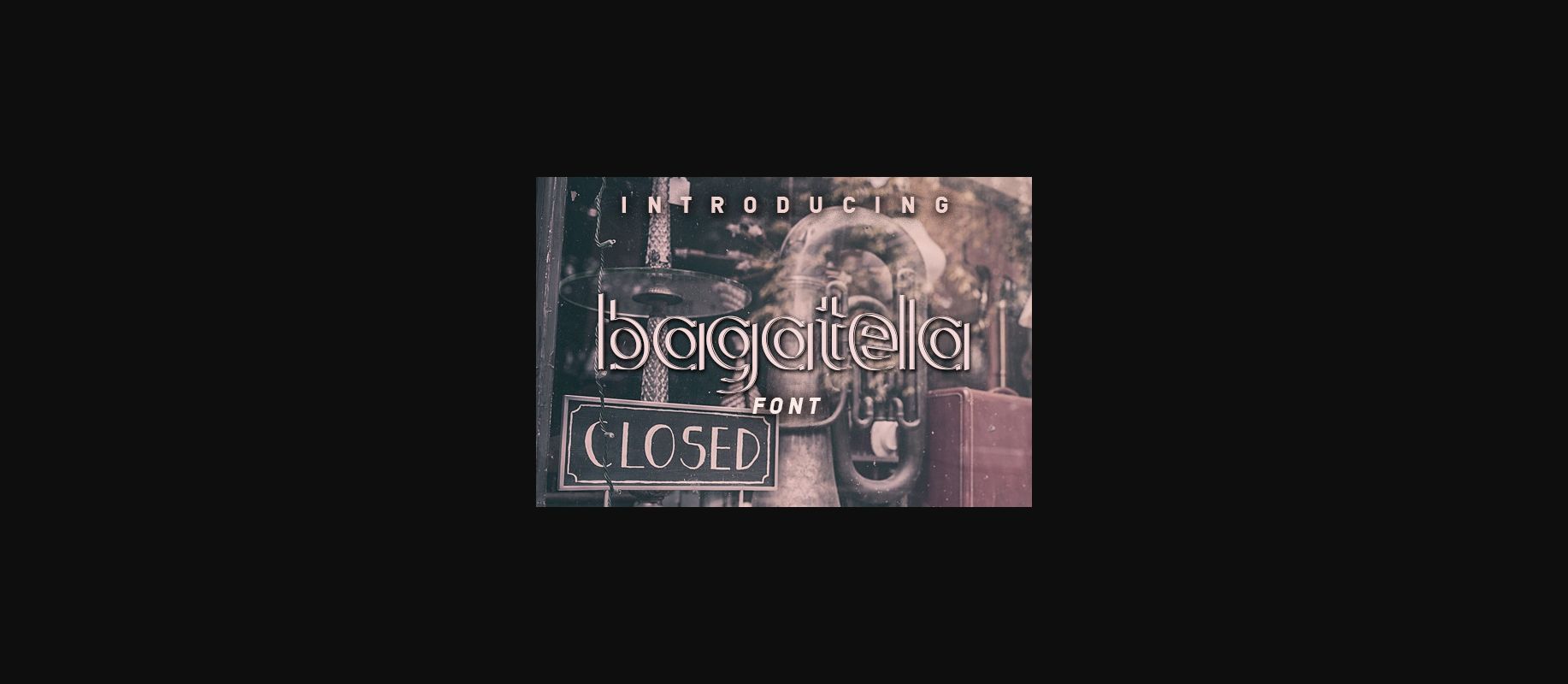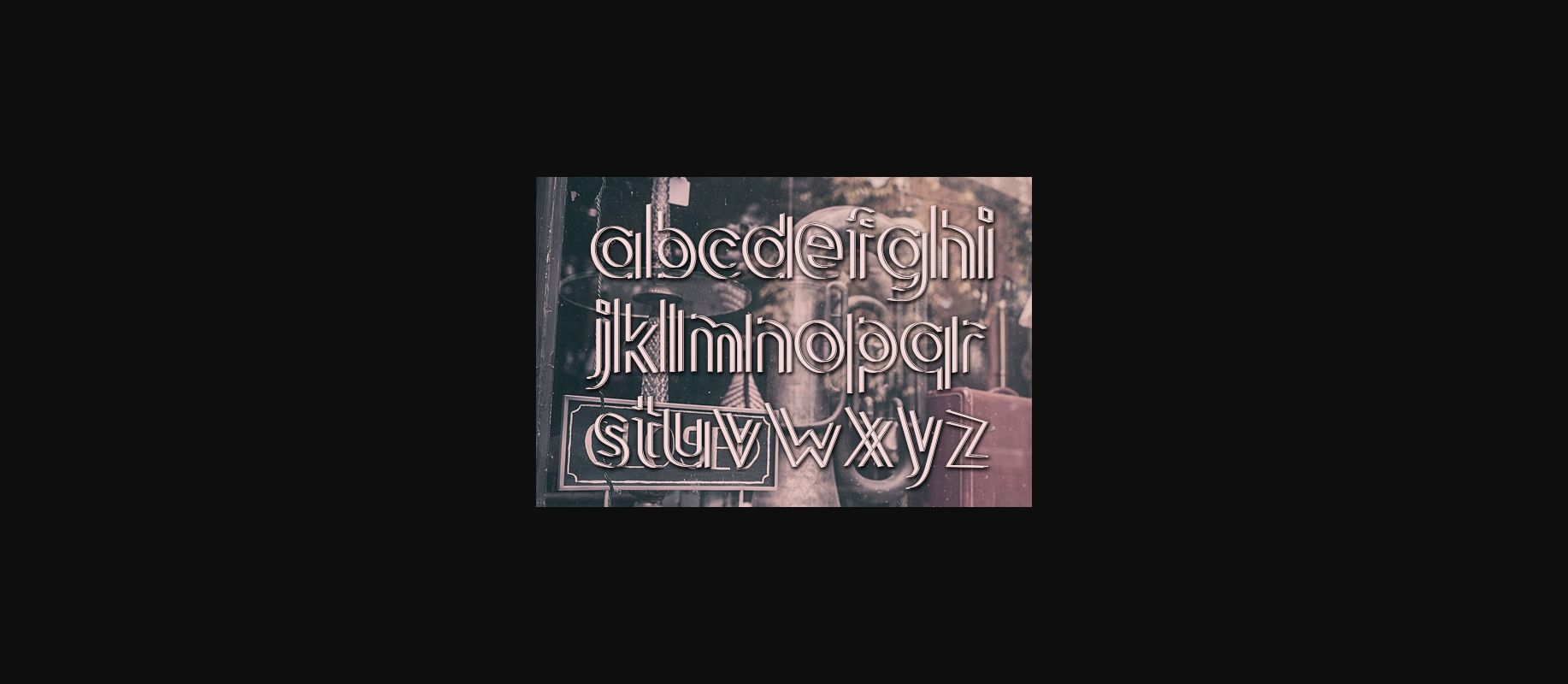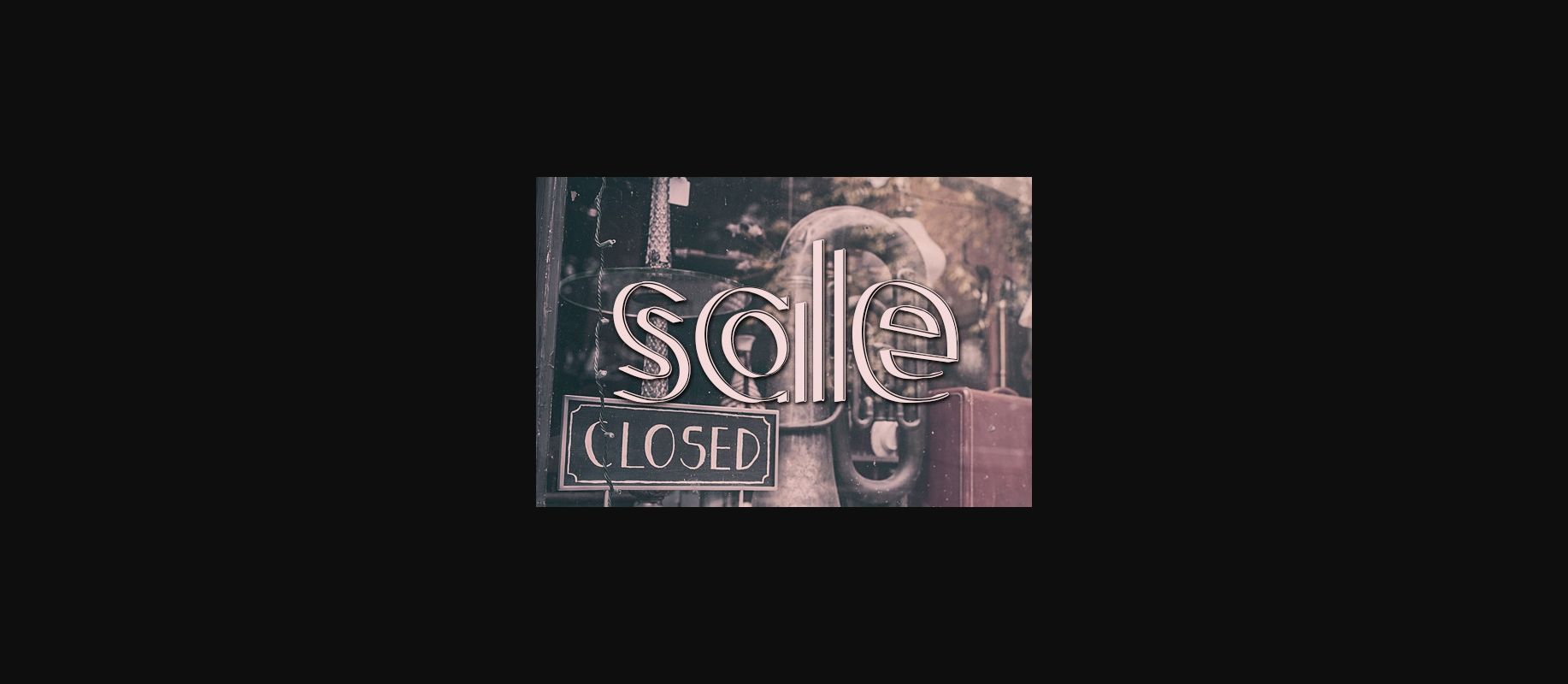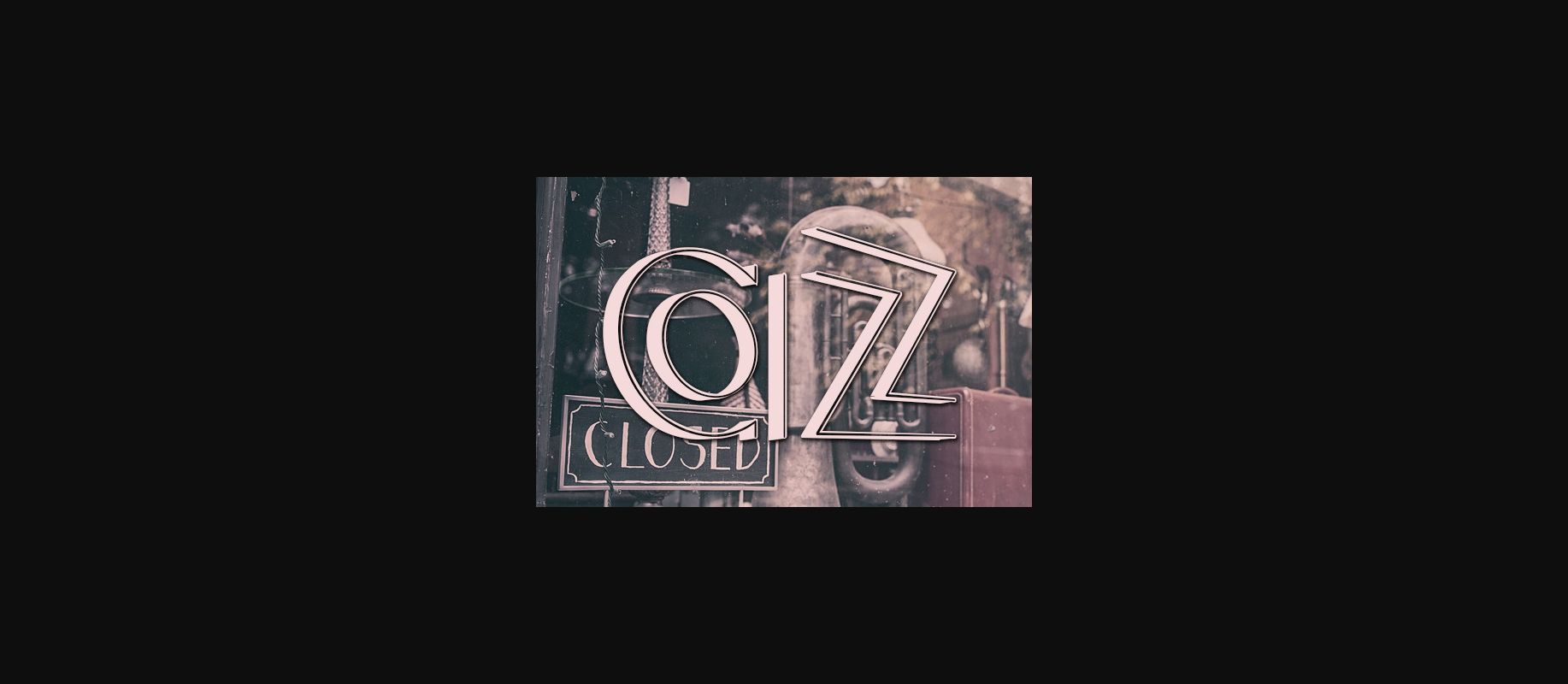
Bagatela Font
About Bagatela Font
Bagatela is awesome 3D typeface that will look stunning on any of your projects. Use it on your logos, social media, cards, flyers, posters, web designs and more.